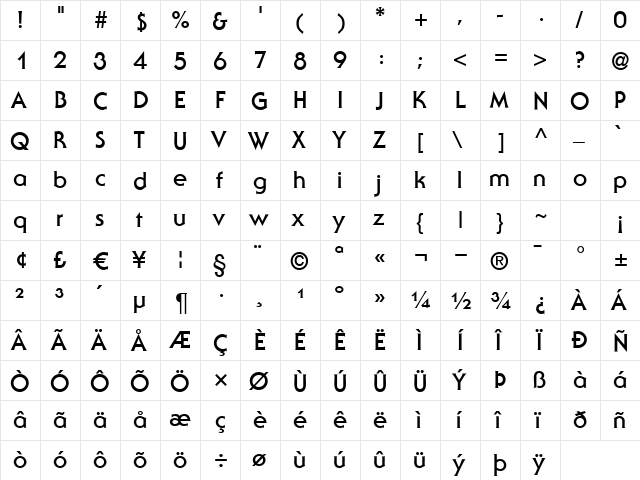
SerenadeTwo Bold
Design Context for SerenadeTwo Typeface
SerenadeTwo offers clean, dependable letterforms without strong stylistic allegiance, making it a practical choice for designers who need flexibility. The heavy weight commands attention and anchors typographic hierarchies.